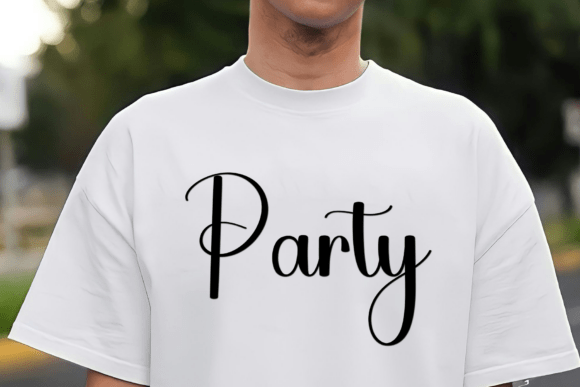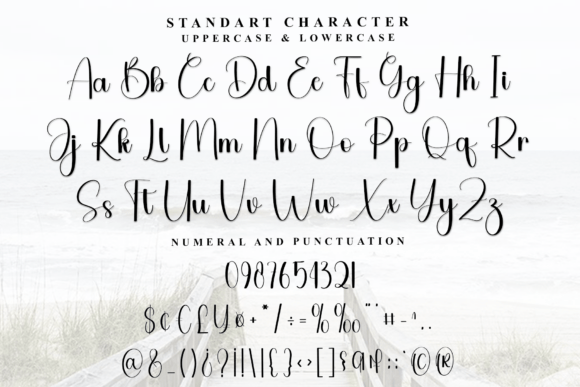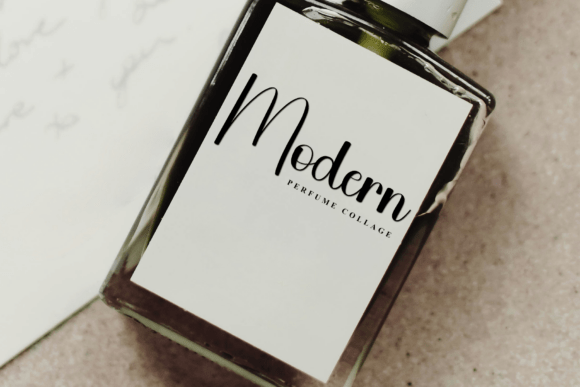
Daily Date Font
About the Daily Date Font
Presenting Daily Date Font, a unique and stylish typeface that will make your work stand out. Daily Date is a magical script font carefully created with a touch of elegance. Whether you’re looking for fonts for Instagram or calligraphy scripts for DIY projects, this font will turn any creative idea into a true piece of art!
Daily Date’s elegant yet slightly informal style makes it ideal for short headlines, invitations, or social media graphics where a touch of handwritten charm is desired. It works particularly well for branding projects focusing on feminine products, artisanal goods, or boutique businesses. However, its script nature and varying stroke weights make it unsuitable for body text or lengthy passages; readability suffers at smaller sizes.
For optimal visual balance, pair Daily Date with a clean sans-serif like Lato or Open Sans for body copy, providing a modern contrast to its flowing script. Alternatively, a subtle serif like Merriweather could offer a more traditional and sophisticated pairing. Avoid pairing it with other highly decorative or overly stylized fonts to prevent visual clutter.
Daily Date projects a sophisticated yet approachable personality, leaning towards a friendly elegance rather than strict formality. Its charm is best utilized in contexts that prioritize a sense of personalized touch and visual appeal over pure readability.
Daily Date Font Usage Examples
Daily Date Font Example